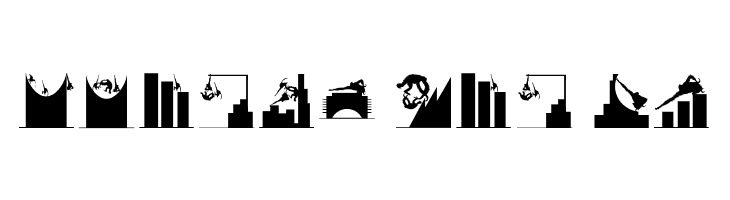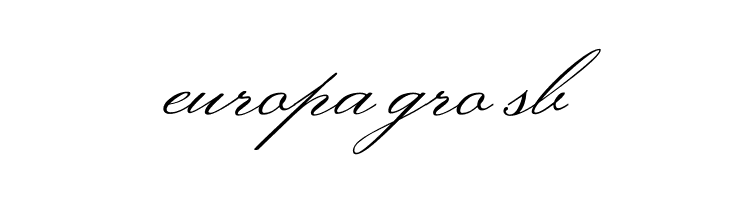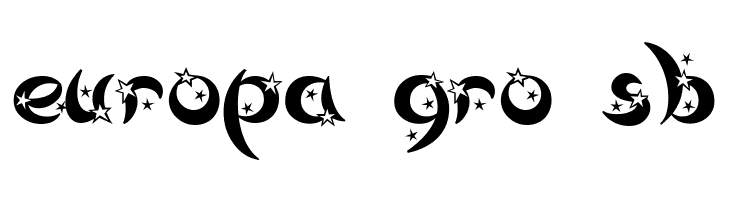
• Monkey Business NF
A bold, geometric font with Art Deco influences and high contrast.
• Monkey Fingers NF
A bold, geometric font with playful and artistic elements.
• MonkeyBusinessNF
A bold, geometric font with Art Deco influences and decorative elements.
• MonkeyFingersNF
A bold, geometric font with playful and angular design elements.
• MonkeysTheatre
A whimsical decorative font featuring monkeys and architectural silhouettes.
• Monsieur La Doulaise Regular
An elegant script font with intricate, flowing lines and ornate uppercase letters.
• MonsieurLaDoulaise-Regular
An elegant script font with ornate uppercase letters and smooth, flowing lowercase characters.
• Monterey Popsicle NF
A playful blend of geometric and script styles with bold, consistent strokes.
• MontereyPopsicleNF
A playful, geometric font with bold lines and curves, blending modern and retro styles.
• Moonlight
A whimsical, celestial-themed decorative font with moon and star elements.